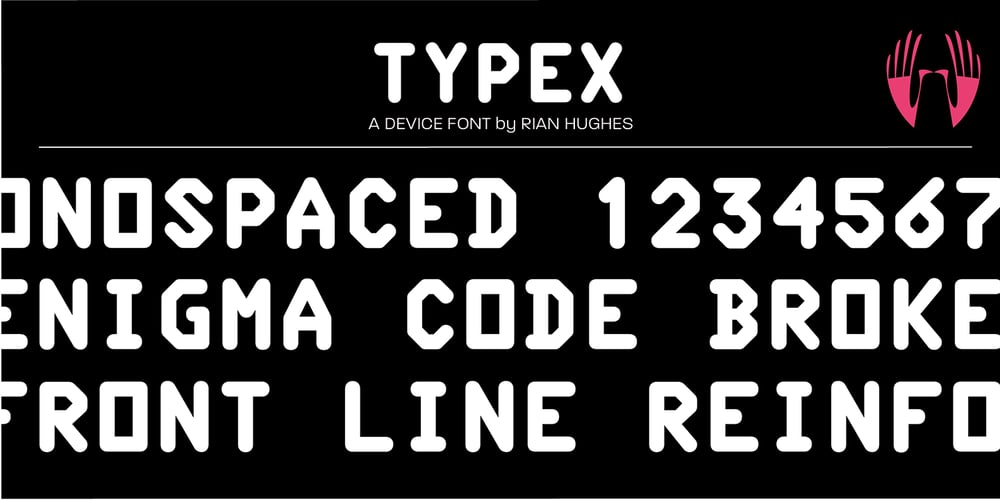
Typex
Typex font
Typex Font Family was designed by Rian Hughes and published by Device. Typex contains 2 styles and family package options. Based on the lettering used on Alan Turing’s famous code-breaking machine at Bletchley Park, the “Bombe”, and the subsequent British answer to the German Enigma machine, the Typex. Research done at Bletchley Park on their restored and antique machines provided the inspiration. The unusual shapes for the capitals have all been retained – the square O, the monospaced characters and other eccentricities that make it unique. This reference material was then extended to the numerals (which did not exist in the original) and a full international character complement. The initial design of the bombe was produced in 1939 at the UK Government Code and Cypher School (GC&CS) at Bletchley Park by Alan Turing, with an important refinement devised in 1940 by Gordon Welchman. It was based on a device that had been designed in 1938 in Poland at the Biuro Szyfrów (Cipher Bureau) by cryptologist Marian Rejewski, and known as the “cryptologic bomb” (Polish: bomba kryptologiczna). The Bombe was used to break the German Enigma code on a daily basis, and was a vital part of the Allied war effort. The British “Typex” (alternatively, Type X or TypeX) machines were an adaptation of the commercial German Enigma with a number of enhancements that greatly increased its security. It was used from 1937 until the mid-1950s, when other more modern military encryption systems came into use.